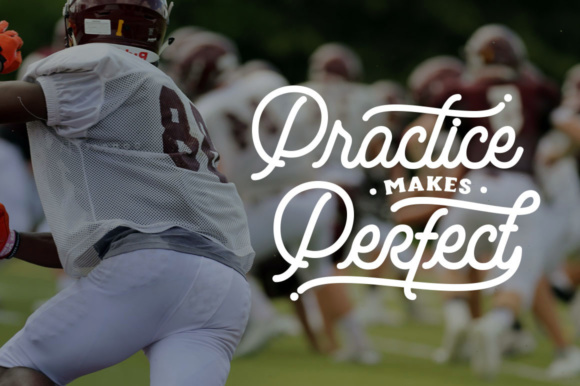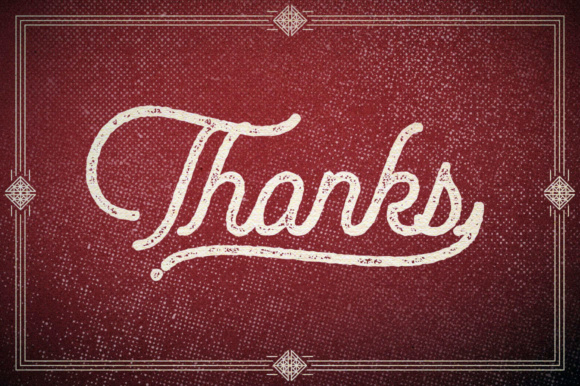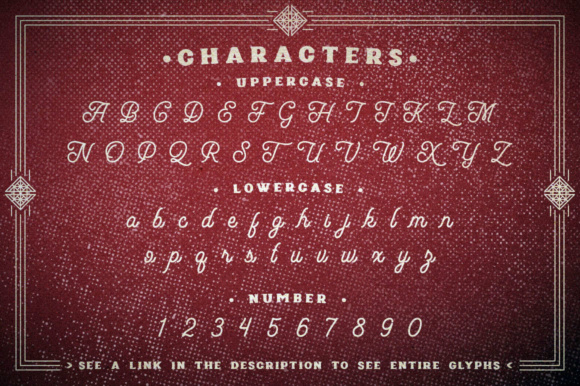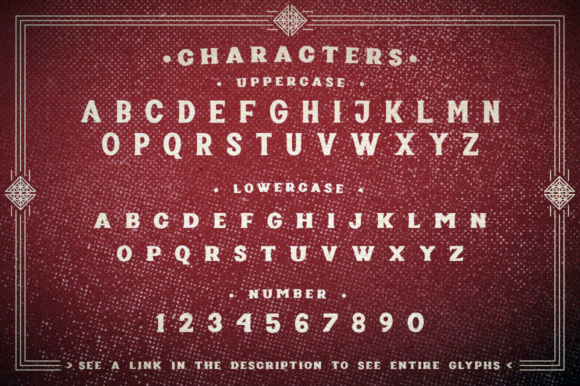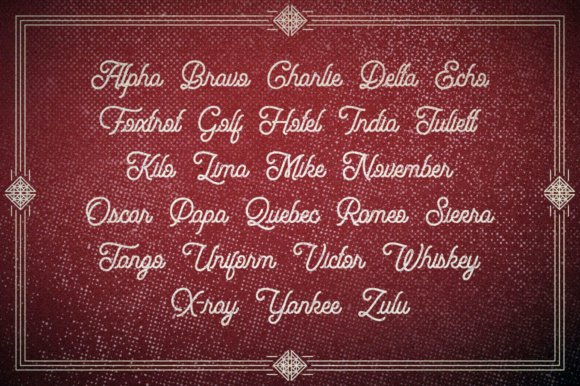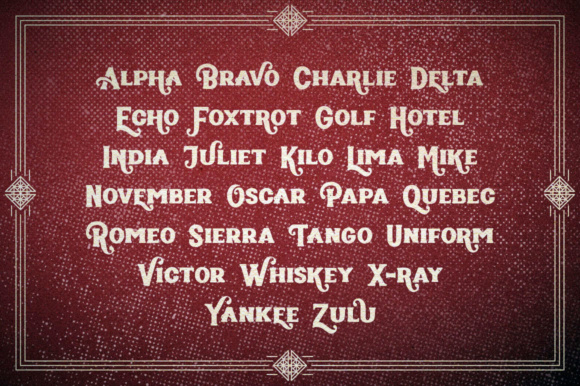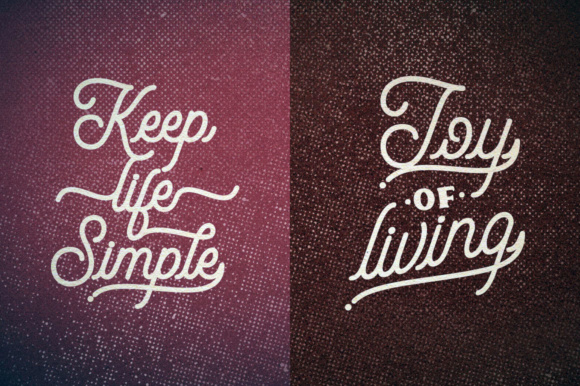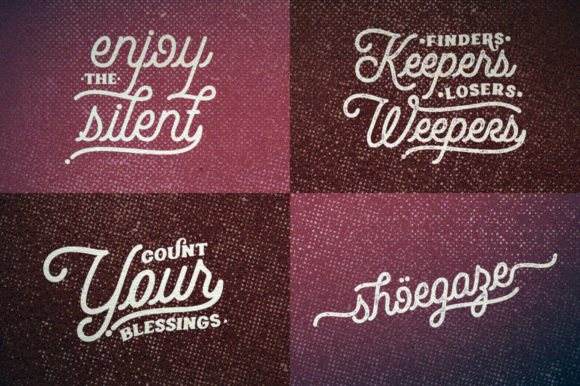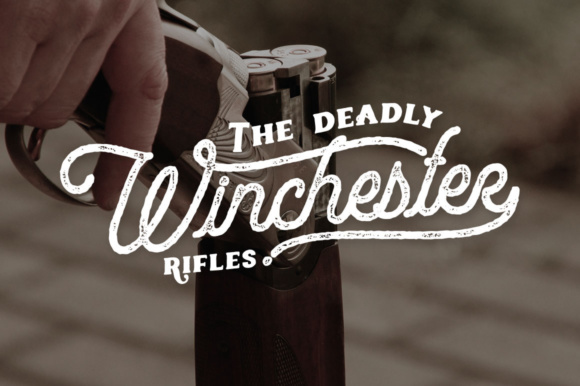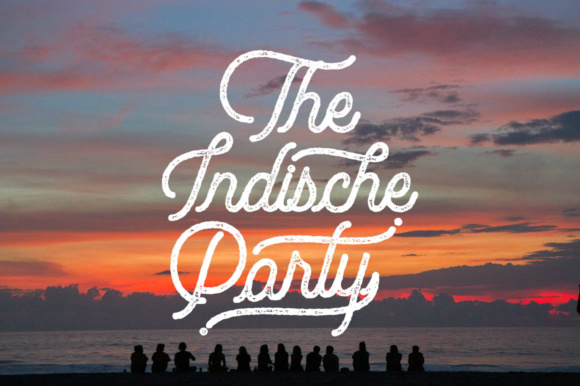
Poptis & Heaver Font
About Poptis & Heaver Font
Poptis & Heaver is a beautiful font duo. It comes in four unique styles to mix and match your designs. The script font comes with multiple alternates that will make your words look like custom lettering. With the additional heaver fonts you will be able to create a beautiful combination. Both of these font are great for logos, lettering, clothing designs, posters, labels, quotes, and much more!